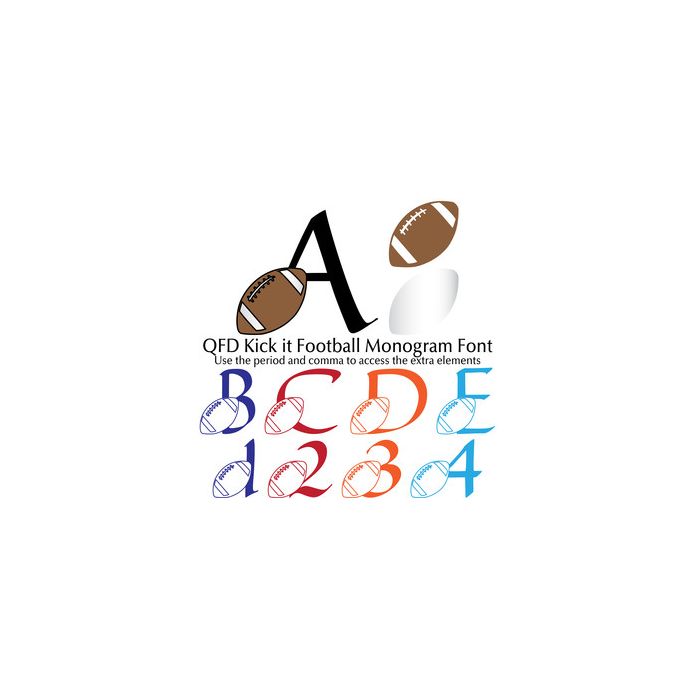
qfd kick it football monogram font
Combine this fun font with the other QFD Monogram fonts! Use the period and comma to access the extra elements. See our detailed monograms tutorial by clicking the Instructions button. If you have any questions, please feel free to contact me!